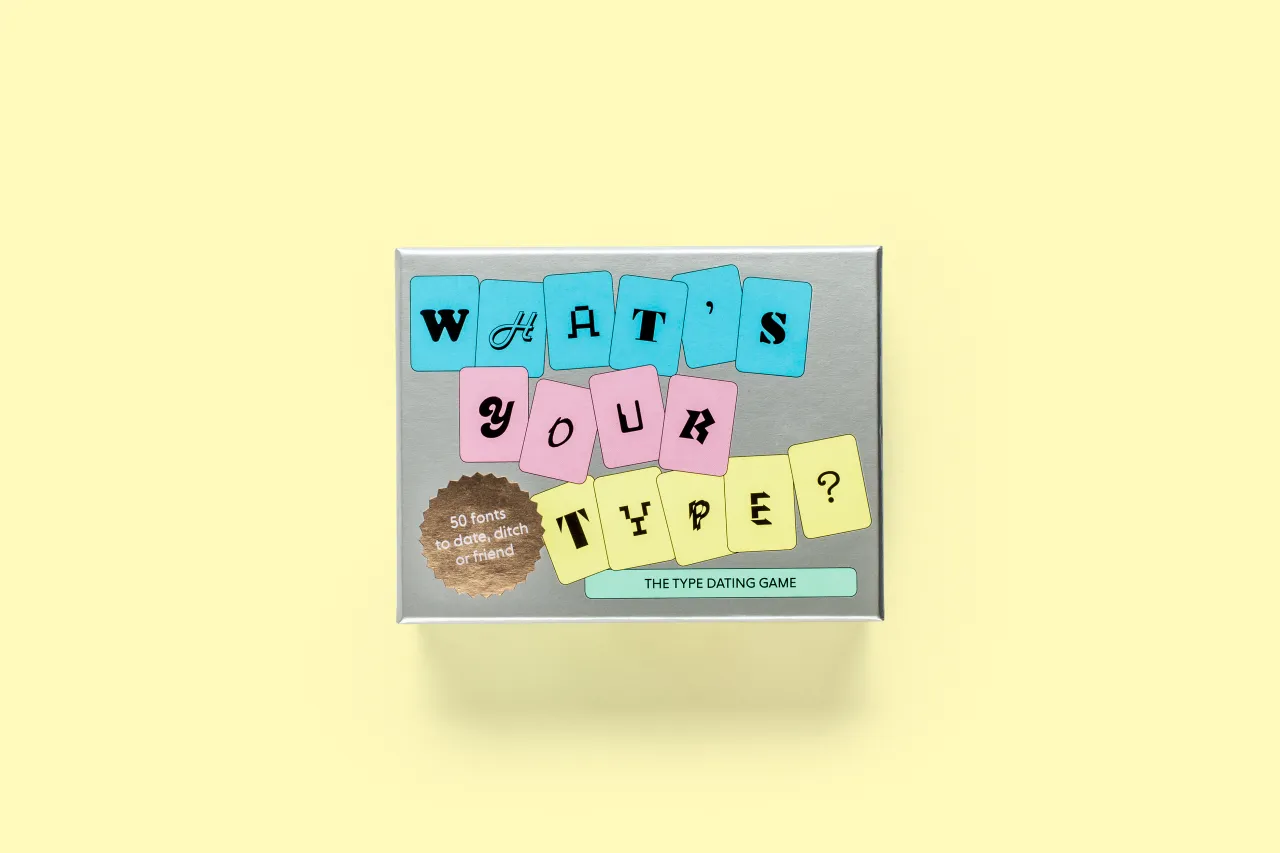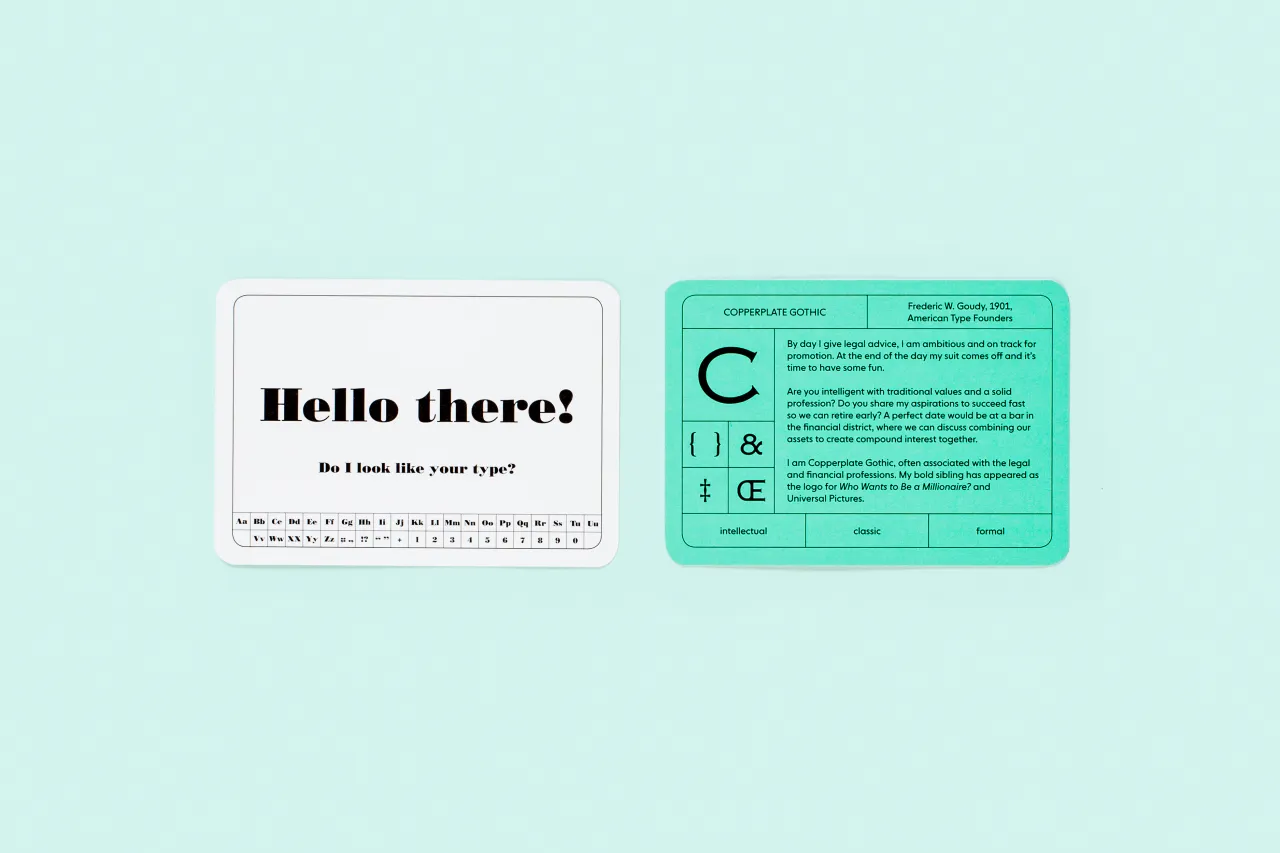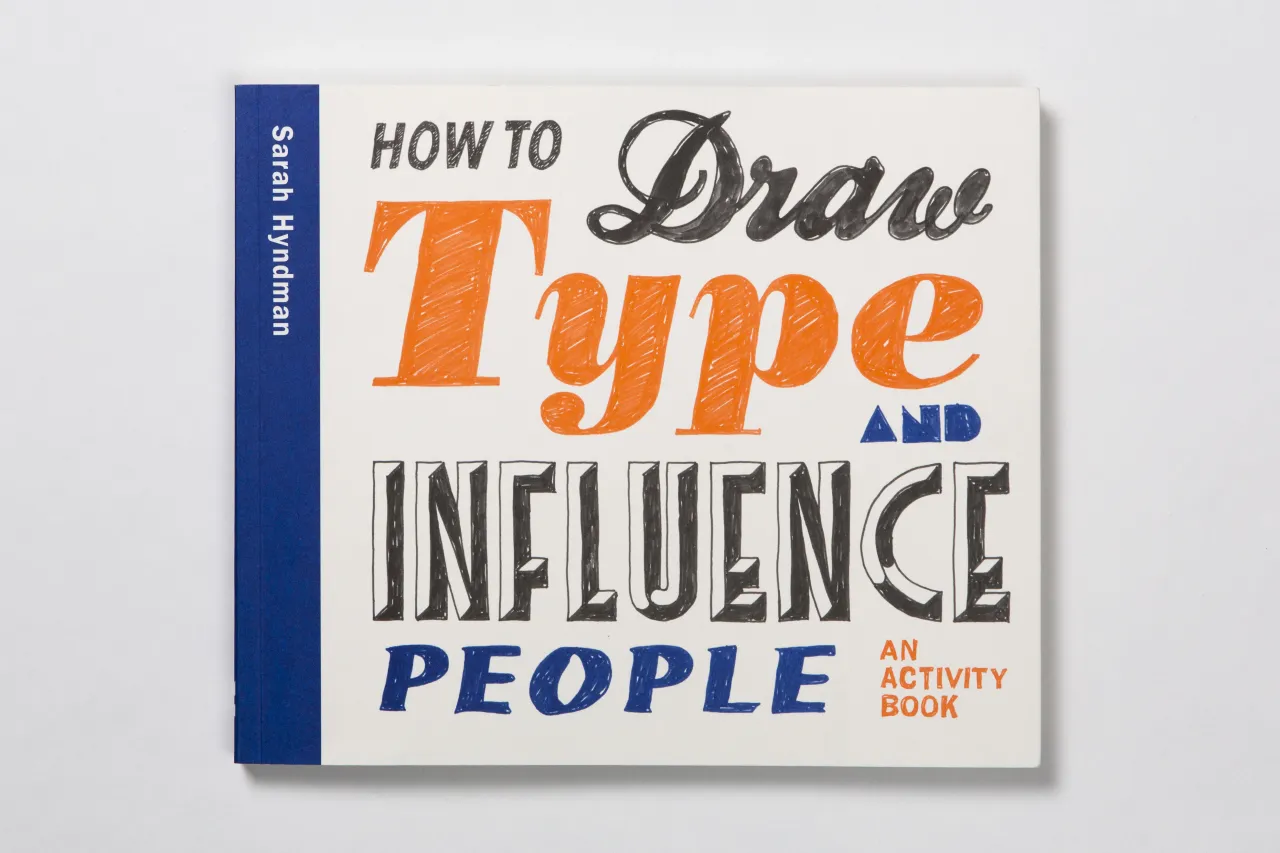
Sarah Hyndman on type psychology, why fonts are emotional and finding your perfect 'type'
It apparently takes just one-tenth of a second for us to form a first impression when we meet someone. We base this on a wide range of unspoken characteristics that greatly influence the way we respond to that person.
Funnily enough, we do exactly the same thing when we read; we instinctively look for visual clues in the fonts/typefaces, which influence the way we respond to the words. We readily translate visual qualities of type into physical experiences. For example, large, bold letterforms that use lots of ink 'sound' loud, or italic letters appear to be faster, as if they are running. We also know instinctively that angular shapes feel sharp and aggressive, while rounded shapes feel soft and friendly.
Enter Sarah Hyndman and her latest project, What's Your Type?: The Type Dating Game, which allows you to go on a 'blind date' with different fonts and learn more about type personalities as you go.
If Times New Roman was a person, would you date them? What character traits would you attribute to Comic Sans? The fifty cards in the game feature different fonts to choose from: make your selection, then turn over to find out what the type you’re attracted to says about the type of character you are. We spoke to Sarah about this and much more.
Tell us more about your own journey so far
At school, I studied sciences, but my very first job was as a signmaker and screen printer, and I really loved doing such a hands-on job. A few years later I became a self-taught graphic designer, worked my way up in industry before running a design business for a decade. In 2013 I reached a point where I needed to take some time out to reassess what I was doing and to fall back in love with my work again.
I had really started to enjoy type when I taught an Experimental Typography course at the London College of Communication (University of the Arts) after studying an MA there in Typo/Graphic Design. I found the expressive nature of letterforms, and how so much could be said by combining nuances and by breaking the rules, exciting.
We love the idea of the Type Tasting studio. Why did you come up with this idea?
The idea of Type Tasting is based on the concept of wine tastings. It’s an approach to teaching typography in a fun and social setting, which is designed to be just as exciting for non-designers.
It has always puzzled me that typography is considered to be such a ‘niche’ subject when we are surrounded by, and interact with, letterforms almost constantly in our modern lives. I create environments and events designed to democratise typography by making it engaging for all. I guess the idea behind Type Tasting is to bring typography to people who wouldn’t previously have known they would be interested.
What has been the feedback so far?
I started to create experiments when I realised that very little research had been published in the area of psychology and typography. There were lots of questions I wanted answers to and so the only way to find out was to do the experiments myself.
To get enough people to take part I create mass-participation events and I make the experiments really intriguing to look at and fun to take part in. This way I gather all the data I need, but I also engage lots of people in really interesting conversations about typography. I do most events outside the design world and quite often people will look at me with an expression of “get me out of here” when I say the word “fonts”, but everybody quickly discovers that they have really clear opinions about, for example, what Comic Sans would taste like or whether they’d snog/marry/avoid Times New Roman. It’s just a case of changing the language and talking about typography in an inclusive way.
All of the experiments are self-funded, which means I can investigate anything I think might be useful, and I have no commercial agenda. The ultimate goal is to publish a beautifully designed book, or series of books, with all of the results for everybody to use. I’m currently applying for funding to make this happen.
Through your own research, you’ve discovered that written language isn’t just seen, it’s also felt, heard, smelt. How is that?
Having started to ask people what different typefaces might taste like, I quickly discovered that there’s actually a whole science to this—crossmodalism—which, once I started reading the research, I realised: ‘Ah, maybe I could look at typefaces and see how they actually influence your other senses.’
The term ‘crossmodal’ literally means that when you experience something with one of your senses it effects one or more of your other senses. In fact, your brain just takes in all of the sensory information and mixes it up together so of course, the senses overlap.
Most people will agree instinctively that more ink on a page (or bigger, upper case letters) sounds louder. Comic Sans would feel like jelly, jagged shapes look sharp, and interestingly jagged shapes will also make you more aware of bitter or sour flavours. Curvaceous, melt-in-the-mouth lettering suggests drizzling chocolate or melting cheese. And when I ask people to pair smells with typefaces there are really clear patterns to their answers, which has been a really interesting discovery.
I am also looking forward to seeing what happens as typography becomes more democratised. For example fonts as fashion trends that appear and vanish on Instagram, and emoji technology that lets everybody use custom fonts in their running Twitter or Instagram feeds.